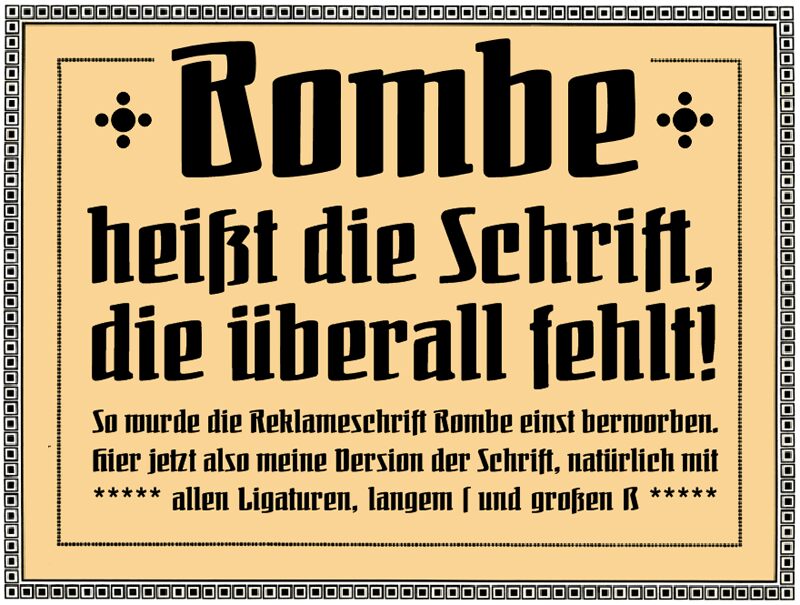
Bombe CAT, designed by Peter Wiegel, is a bold and condensed display retro font that will add a touch of vintage flair to your projects. Ideal for posters, packaging, logos and branding materials, this typeface is sure to make a statement. Its bold weight and condensed width make it perfect for headlines and titles that need to grab attention. Bombe CAT's charmingly retro style also makes it suitable for designing invitations or greeting cards with a nostalgic feel. With its unique personality, this font is sure to enhance any project you use it in.
Bombe CAT